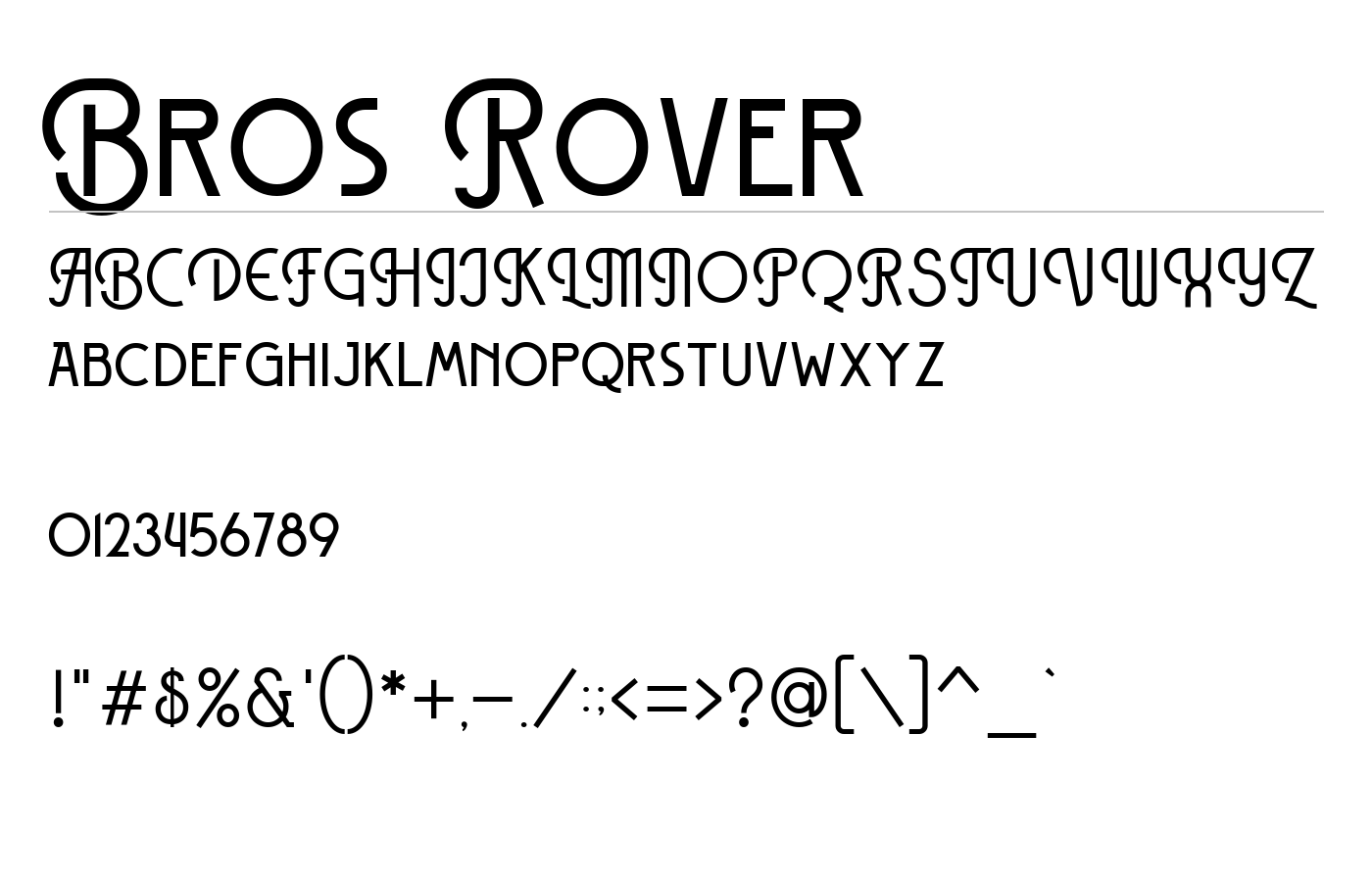
Bros Rover is a distinctive sans serif font with playful, art deco-inspired curves and unique letterforms that blend elegance with modernity. Its clean, narrow design and subtle decorative flourishes make it ideal for stylish branding, headlines, and editorial projects where a sophisticated yet approachable look is desired. This font works well in fashion, luxury packaging, and creative posters, lending a refined and memorable personality to any design.
Bros Rover Font
About Bros Rover Font